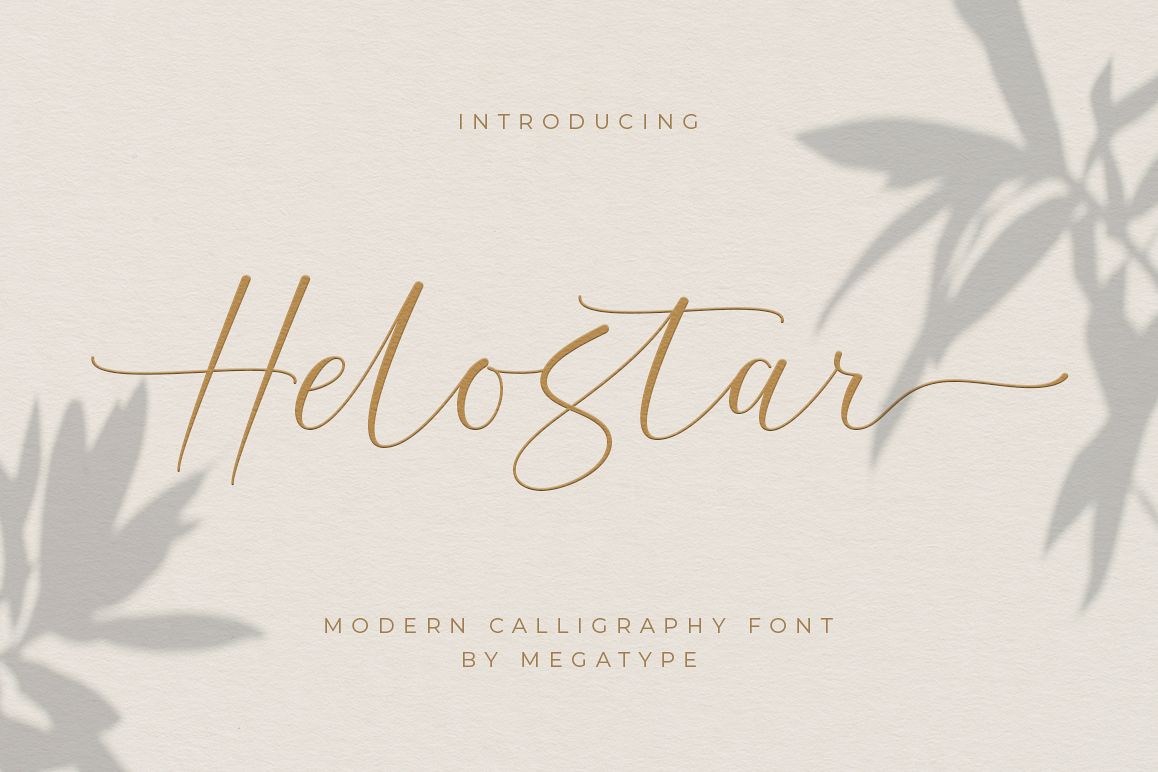
Helostar
INTRODUCING
Helostar Script is a modern calligraphy font, that features a varying baseline, smooth line, classic and elegant touch. Can be used for various purposes.such as headings, signature, logos, wedding invitation, t-shirt, letterhead, signage, lable, news, posters, badges etc.
Helostar Script features 400+ glyphs characters. including 150+ ligatures, alternates and multiple language support.